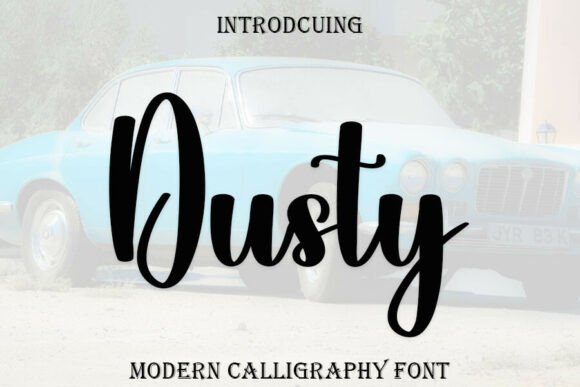
Dusty Font: The Sweet and Elegant Handwritten Font for Your Design Needs
Are you looking for a font that can add a touch of elegance and romance to your designs? Look no further than Dusty Font, a beautiful and cursive handwritten font that is perfect for a variety of design projects. In this article, we’ll explore the features and benefits of Dusty Font, and show you how it can be used to create stunning designs that are sure to impress.
What is Dusty Font?
Dusty Font is a sweet and cursive handwritten font that is designed to add a touch of joy and romance to your designs. With its gentle and flowing curves, Dusty Font is perfect for creating elegant and sophisticated designs that are sure to stand out. Whether you’re working on a branding project, a wedding invitation, or a fashion lookbook, Dusty Font is the perfect choice.
Key Features of Dusty Font
So, what makes Dusty Font so special? Here are just a few of its key features:
- Cursive and Handwritten: Dusty Font is a cursive and handwritten font, which gives it a personal and elegant touch.
- Gentle and Flowing Curves: The font features gentle and flowing curves that make it perfect for creating elegant and sophisticated designs.
- Versatile: Dusty Font is versatile and can be used for a variety of design projects, from branding and logos to wedding invitations and greeting cards.
- Elegant and Romantic: The font has an elegant and romantic feel, making it perfect for designs that require a touch of sophistication and glamour.
Use Cases for Dusty Font
Dusty Font is perfect for a wide range of design projects, including:
- Branding and Logos: Use Dusty Font to create a unique and memorable brand identity that stands out from the crowd.
- Wedding Invitations and Things: Add a touch of elegance and romance to your wedding invitations, save-the-dates, and other wedding-related designs.
- Greeting Cards: Use Dusty Font to create beautiful and heartfelt greeting cards for special occasions.
- Fashion and Lookbook: Add a touch of sophistication and glamour to your fashion designs, lookbooks, and marketing materials.
- Marketing Promotion: Use Dusty Font to create eye-catching and effective marketing materials, such as brochures, flyers, and posters.
Why Choose Dusty Font?
So, why should you choose Dusty Font for your design needs? Here are just a few reasons:
- Unique and Elegant: Dusty Font is a unique and elegant font that will add a touch of sophistication to your designs.
- Versatile: The font is versatile and can be used for a wide range of design projects.
- High-Quality: The font is high-quality and features gentle and flowing curves that make it perfect for creating elegant and sophisticated designs.
Tips and Tricks for Using Dusty Font
Here are a few tips and tricks for using Dusty Font:
- Use it for Headings and Titles: Dusty Font is perfect for headings and titles, so use it to add a touch of elegance and sophistication to your designs.